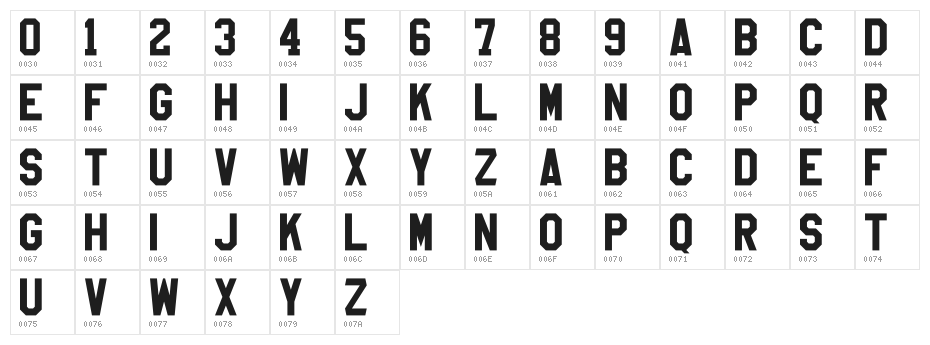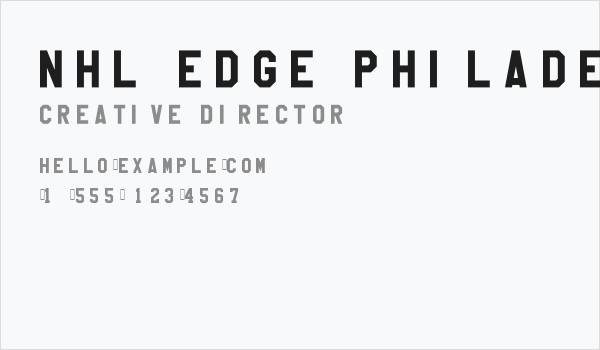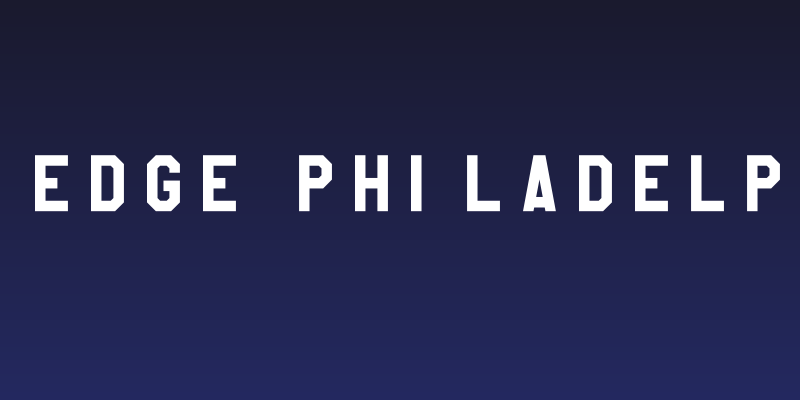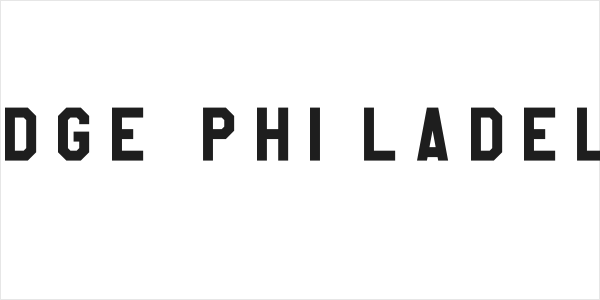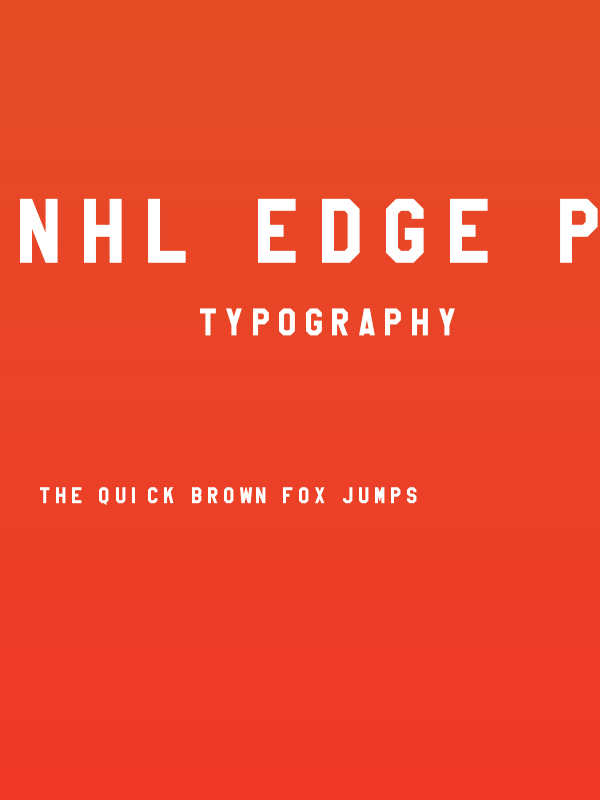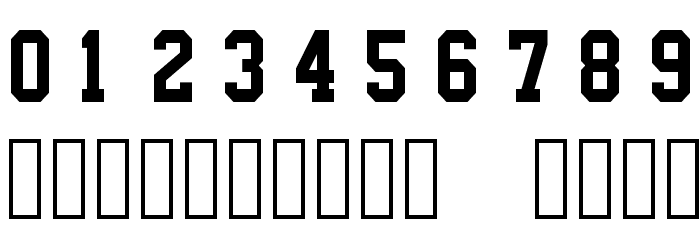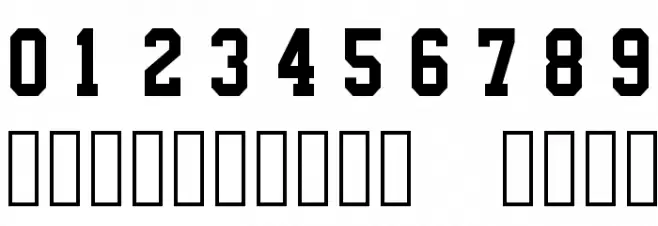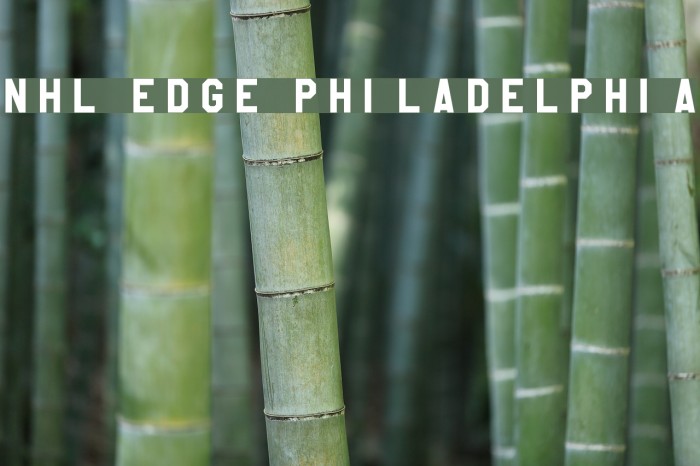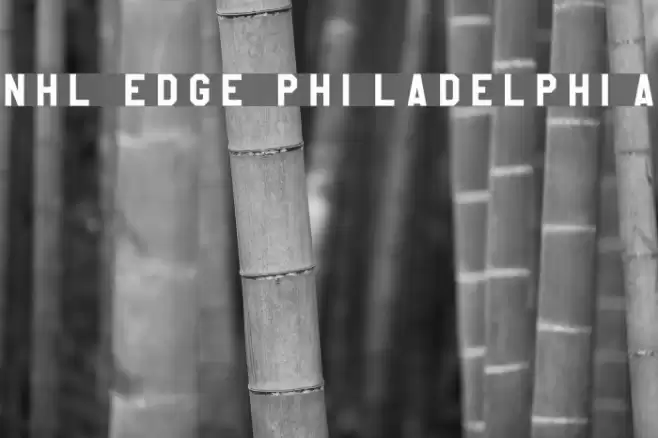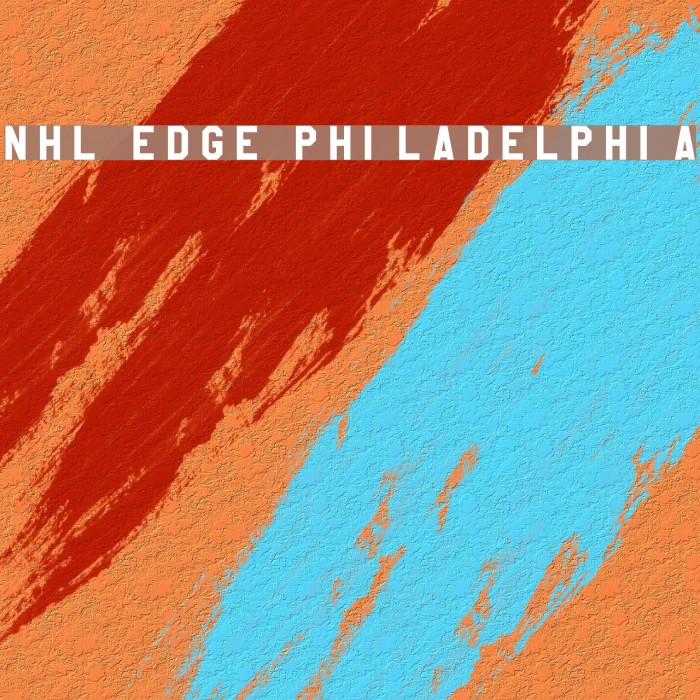
NHL Edge Philadelphia Font
This font features a bold, geometric design with a strong, athletic feel. The characters are blocky and angular, reminiscent of sports jerseys and team branding. The uppercase letters are uniform in height and width, creating a cohesive and powerful appearance. The numerals follow the same style, ensuring consistency across all characters. The lack of curves and the emphasis on straight lines give it a modern and assertive look, suitable for conveying strength and determination.
| Use Case | Logos, Headlines |
| Proposed Projects | Ideal for sports team branding, athletic apparel, event posters, and merchandise. |